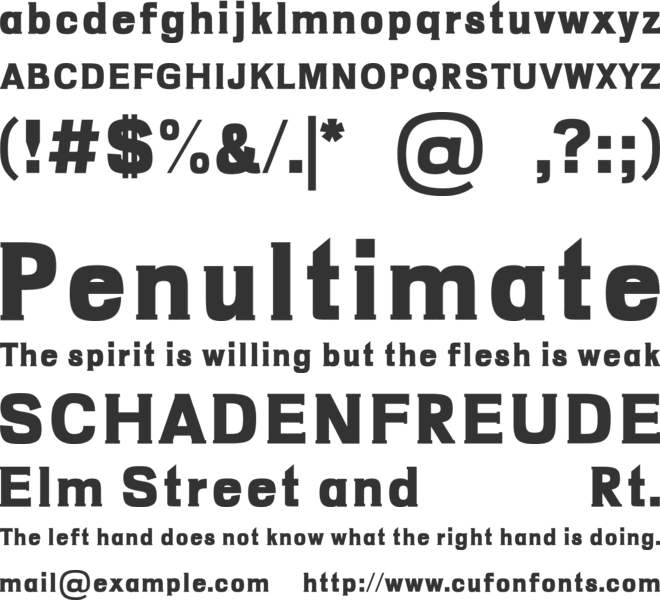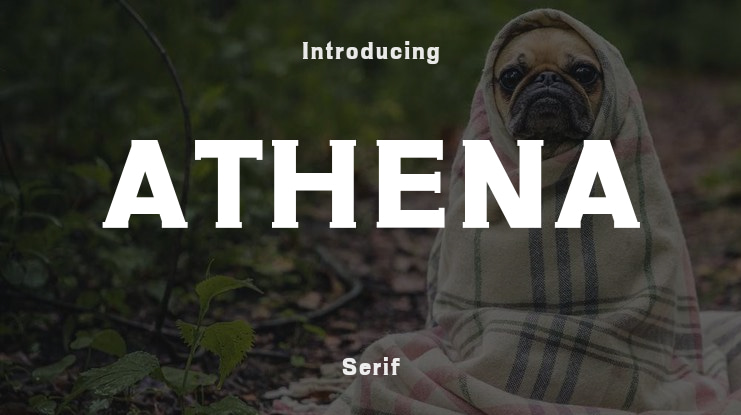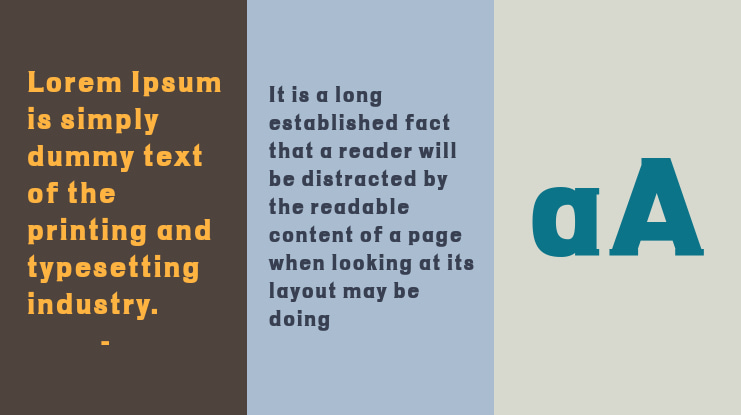
ATHENA Font Family
Athena is a bold minimalist slab serif with classical elegance and multilingual support—perfect for editorial design, premium packaging, and cultural branding.